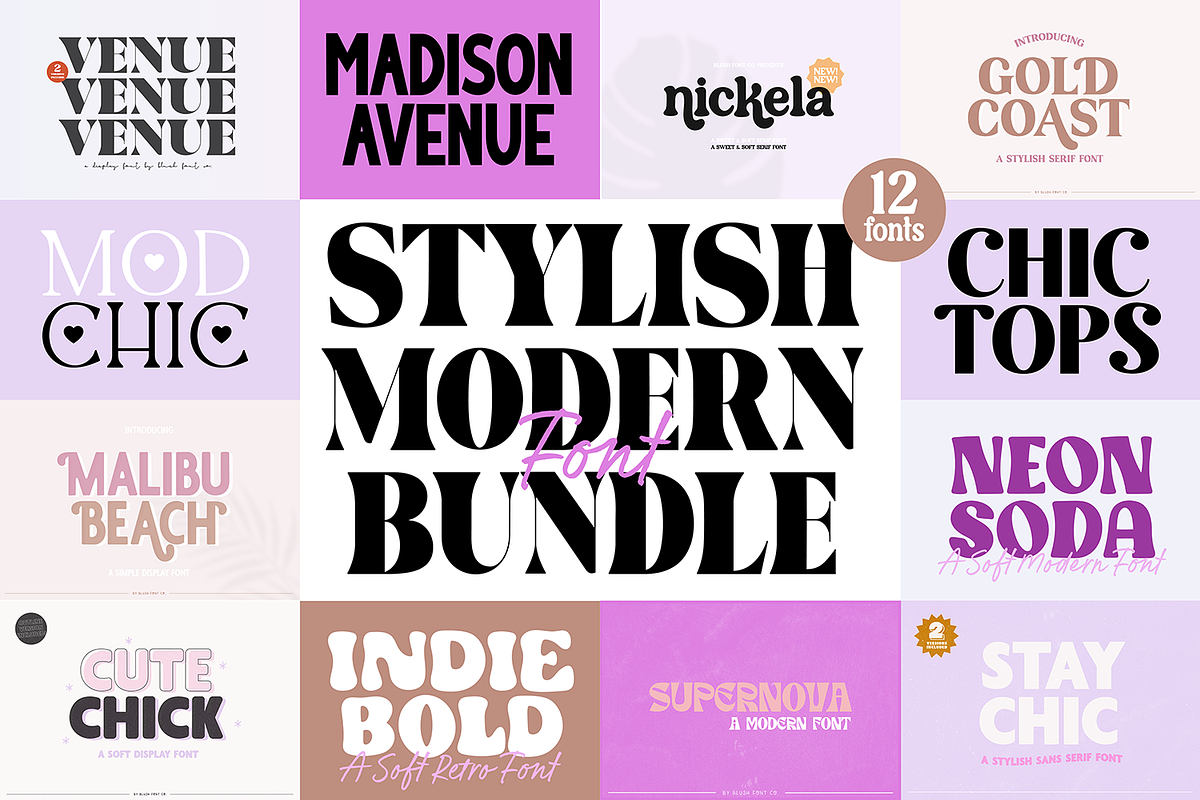
STYLISH MODERN Font Bundle V1 Free Download is a premium collection of elegant and contemporary typefaces designed to elevate any creative project. This bundle features a variety of modern serif, sans-serif, and script fonts—perfect for logos, branding, social media content, packaging, and editorial design.
With carefully crafted letterforms and versatile styles, each font in the bundle delivers a clean, high-end aesthetic. Whether you're working on minimalist designs or bold, trendy visuals, this font pack has everything you need. Fully compatible with Mac and Windows, and offering multilingual support, it’s a must-have for designers looking to expand their font library.